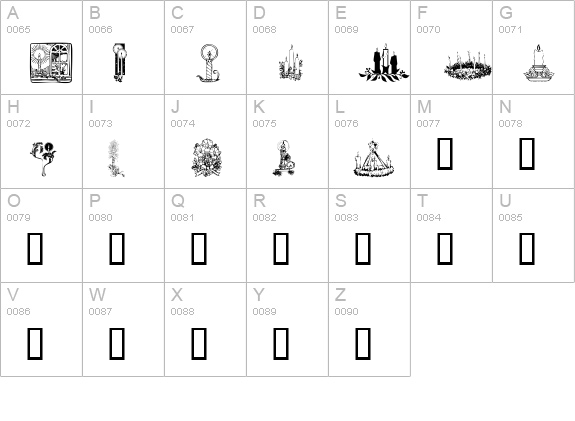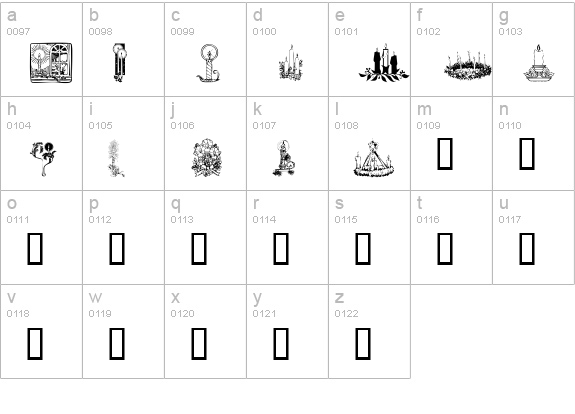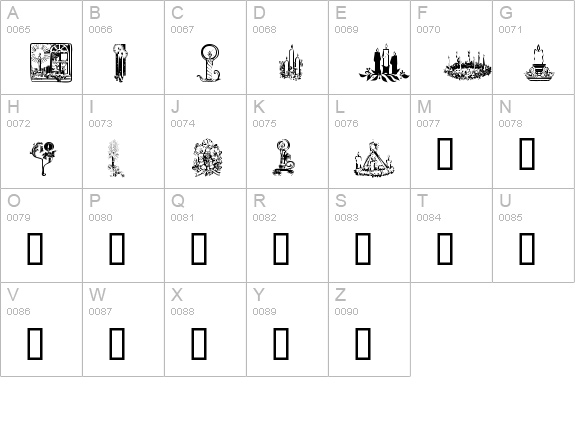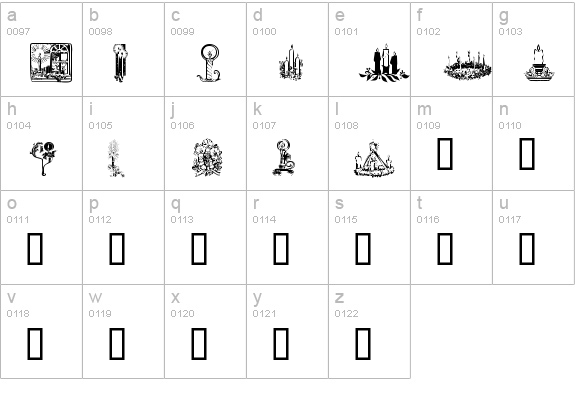
KR Christmas Candles Font Details
Introducing the enchanting KR Christmas Candles font, a whimsical and festive typeface perfect for adding a touch of holiday charm to your projects. This beautiful font features delicate candle-inspired letterforms that evoke a cozy and magical Christmas atmosphere. Each letter is elegantly designed with intricate details reminiscent of flickering candle flames. KR Christmas Candles font is a versatile choice for a wide range of creative projects, from greeting cards and invitations to social media graphics and branding materials. Its unique design will surely stand out and captivate your audience during the holiday season. What's more, this delightful font is available for free download at FontsMarket.com, allowing you to easily incorporate its festive charm into your designs without any cost. Don't miss the opportunity to add a touch of magic to your creations with the KR Christmas Candles font. Download it today and let your imagination shine bright!